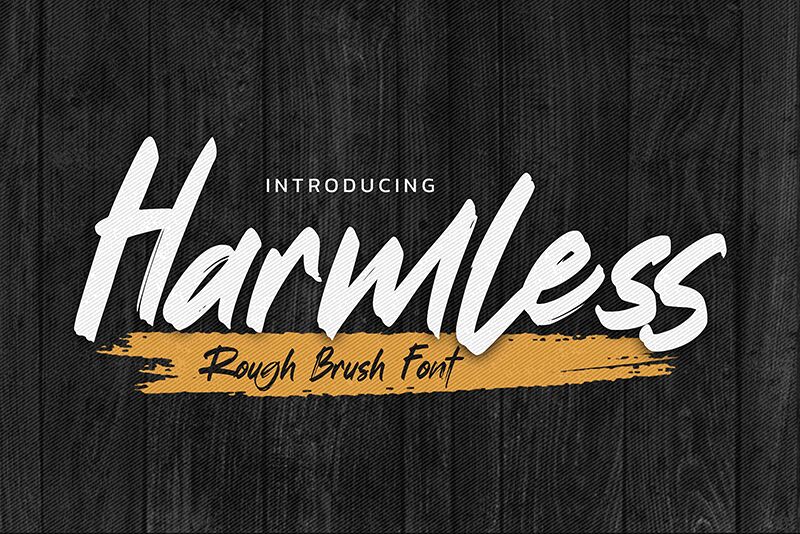
harmless
Experience the raw energy and expressive flair of Harmless, a Rough Brush Font crafted by the innovative Gassstype. With its strong style and dramatic movement, this font embodies the essence of casual speed and artistic precision. Perfect for an array of creative endeavors, Harmless brings an authentic and fun vibe to your work.
Ideal for modern labels, captivating posters, or any project seeking a touch of spontaneity, this brush font elevates your design with its unmistakable charm. Whether it's branding that stands out, packaging that resonates with customers, or greeting cards that convey heartfelt messages – Harmless ensures each stroke adds a personal touch. Embrace its versatility in web design, photography overlays, or scrapbooking; it's also a standout choice for tags that demand attention.
Unleash the potential of Harmless in your next project and watch as it transforms words into visual storytelling with effortless grace.